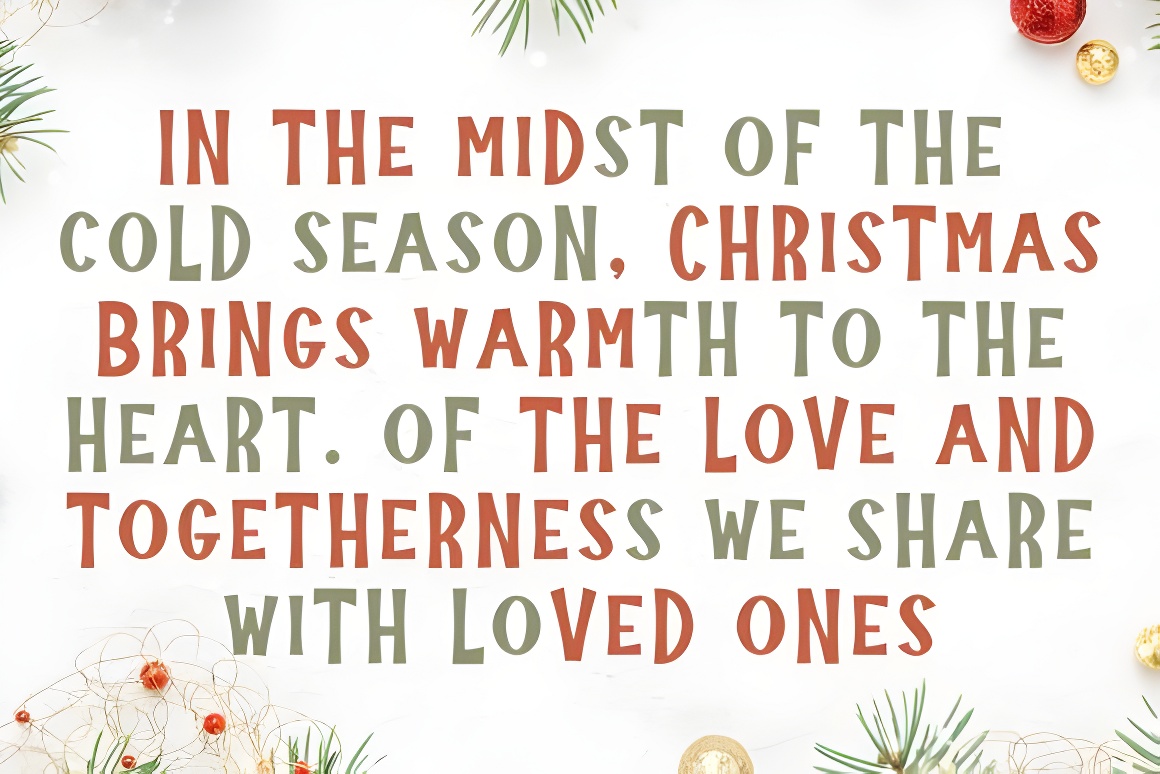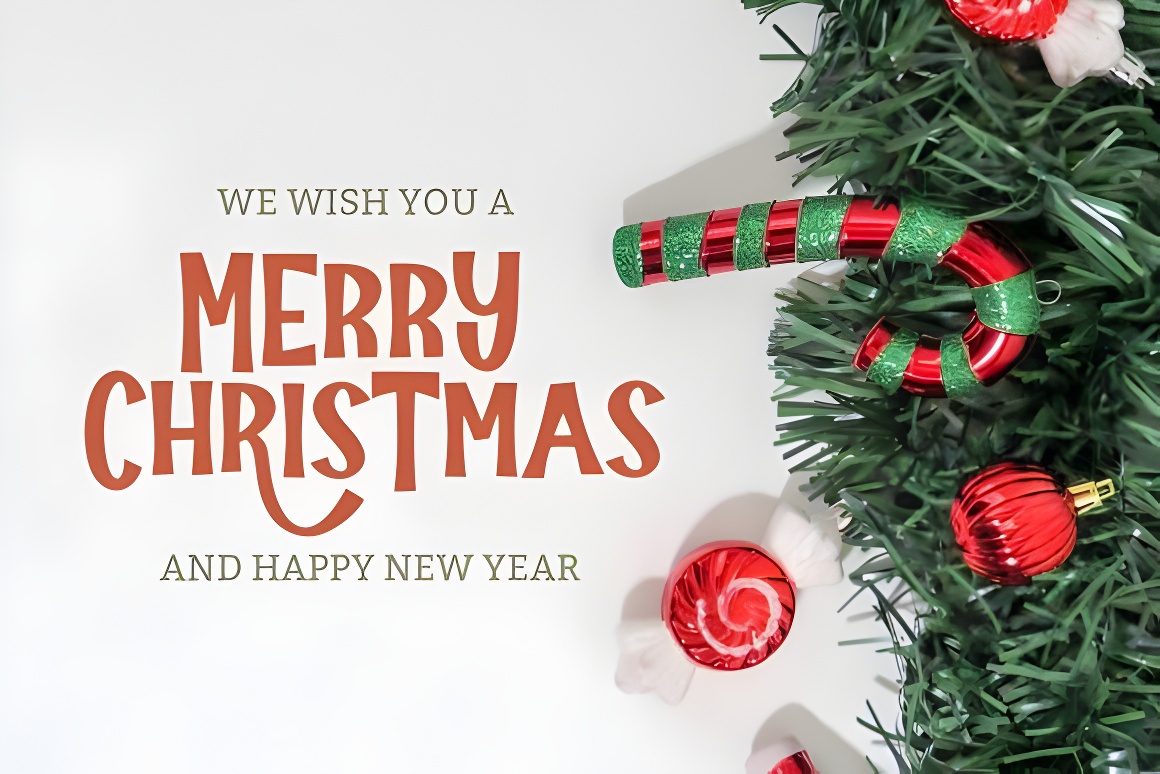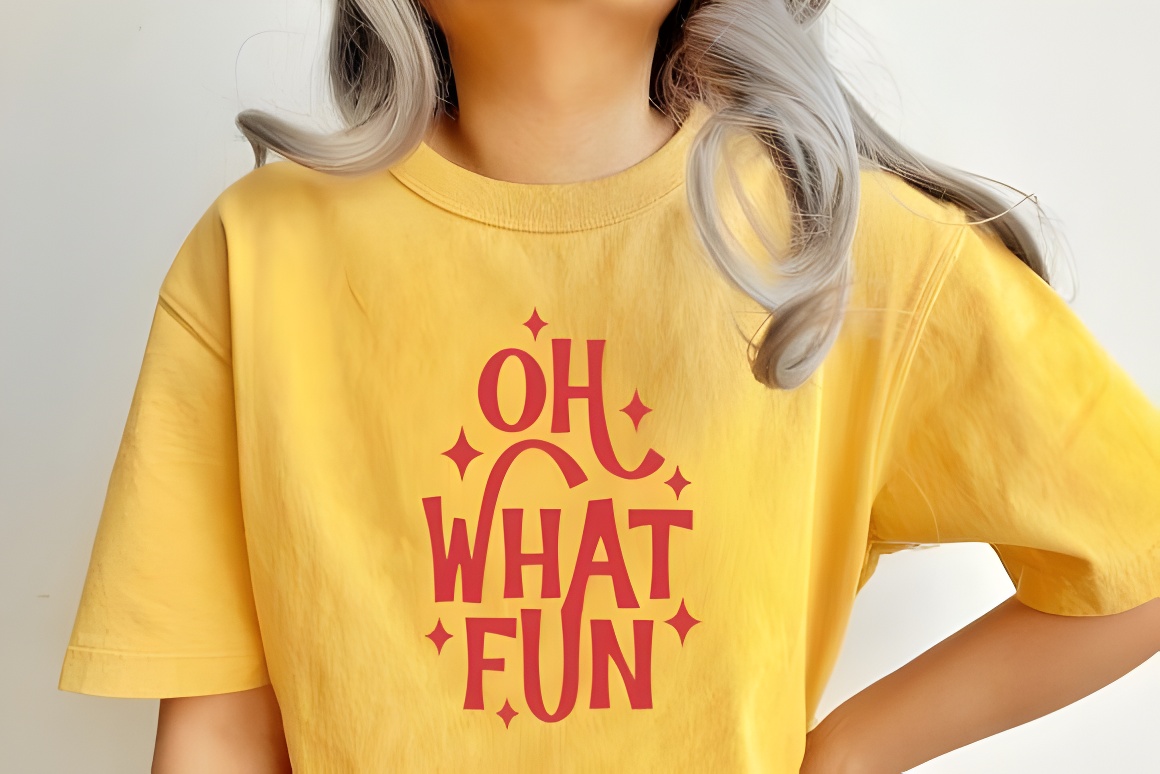
Twinkle Christmas Font - Handmade Holiday Display Typography
Festive handmade font exuding holiday charm with playful typography. Mix cases & alternates for unique designs. Ideal for holiday crafts, invitations, apparel, gifts & more!